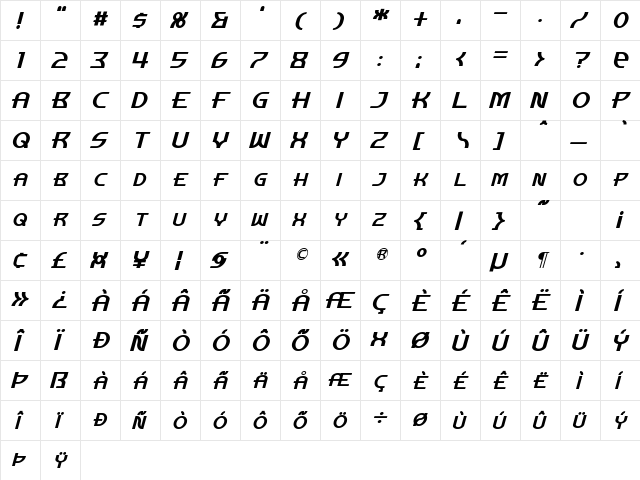
Manhattan Tower Italic
| Foundry | Pixel Sagas |
| Designer | Neale Davidson |
Design Context for Manhattan Tower Typeface
Manhattan Tower is a composed and adaptable typeface that performs quietly and consistently across a wide range of design contexts. The dynamic lean of this cut emphasises speed and emphasis in any layout.
Pro Tip: Use Manhattan Tower for emphasis, pull quotes, and subheadings where its slanted energy can add rhythm to the layout.